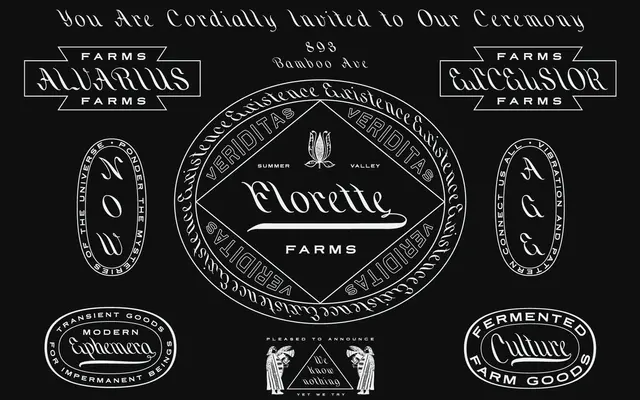
Existence
A calligraphic script typeface from Wabi Sabi Type with fluid, wave-like letterforms suited to refined, handcrafted branding projects.
Drawing from both calligraphy and script type traditions, Existence produces letterforms described as mimicking soft waves of grasses and smoke. The design leans into unhurried, organic elegance rather than formal penmanship, making it adaptable across packaging, editorial headers and identity work where a gentle, handmade quality is wanted. Priced at $99 as a single purchase from Wabi Sabi Type's broader collection of artisanal display faces.
The foundry explicitly describes Existence as blending calligraphy and script type, with elegant forms that evoke soft waves; this places it firmly in the calligraphic script subcategory.